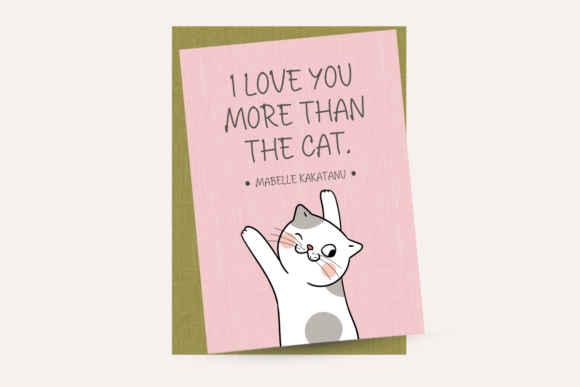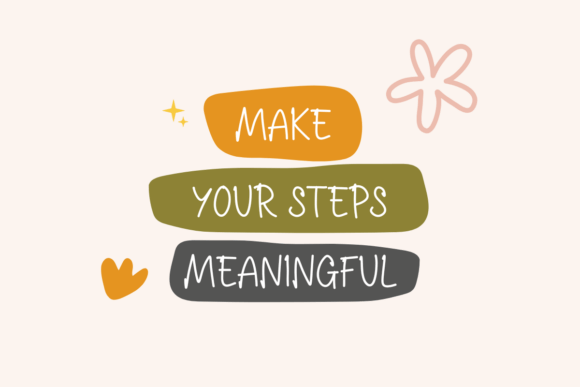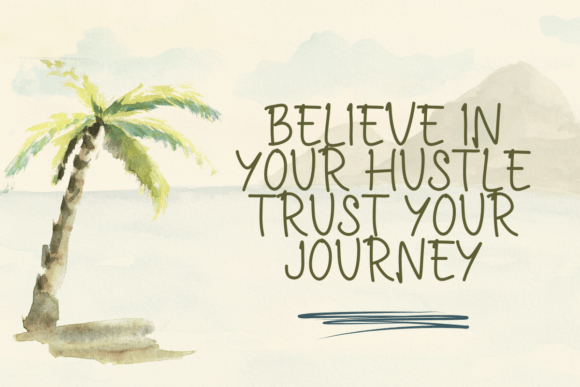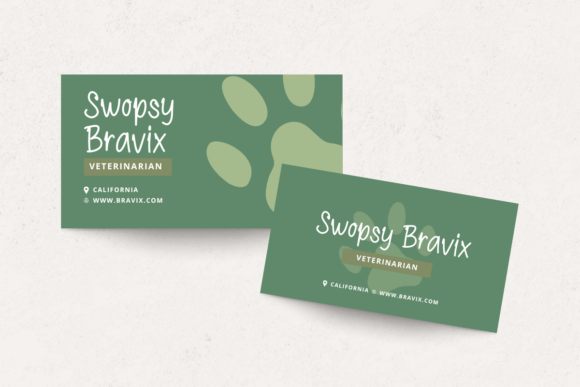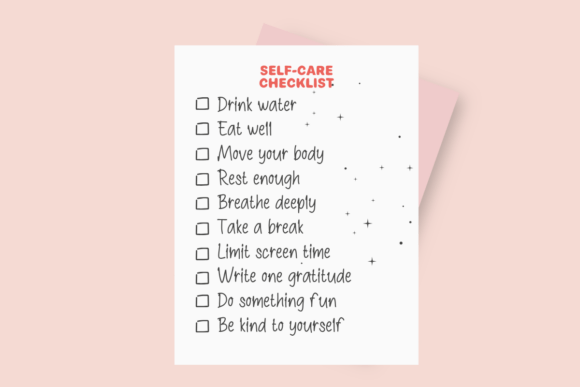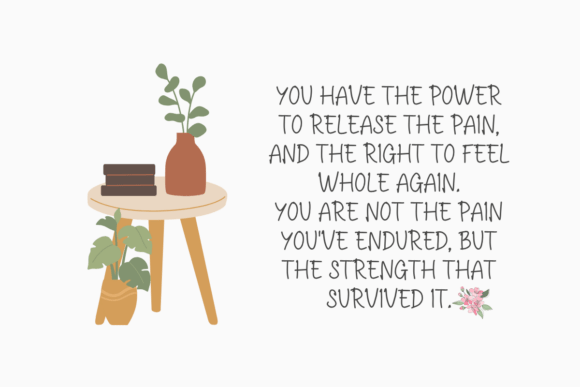
Introduction to Quipty Font
Have you ever stumbled upon the perfect font that captures the essence of your creative vision? For many designers, it’s that ‘aha’ moment that can make all the difference in bringing a project to life. For me, that moment came when I discovered the charming Quipty Font. Its playful, handwritten style instantly adds a touch of personality to any design.
As a valuable addition to any design resource, Quipty Font is perfect for designers looking to add a light-hearted tone to their creative projects. Its clean lines and gentle curves make it suitable for a wide range of applications, from social media graphics to product packaging, and even children’s books. With its smooth, handwritten style and natural rhythm, Quipty Font is a high-quality choice that will elevate your designs and leave a lasting impression.
Key Features of Quipty Font
- High-quality design resource with a unique and creative aesthetic, perfect for various projects.
- Perfect for creative projects, including logos, branding, and digital art.
Honest Review: Quipty Font
What works well: ✨ The Quipty Font has a unique and modern aesthetic that’s perfect for a wide range of creative projects. The font is available in various weights and styles, making it easy to find the perfect fit for your design. I also appreciated the transparent background option, which made it easy to customize and integrate into my design.
What could be improved: ⚠️ While the Quipty Font is a great resource, I did encounter some issues with font size and spacing. The font can be quite dense, which can make it difficult to read at smaller sizes. Additionally, the font doesn’t come with a comprehensive user manual, which can make it tricky to customize and troubleshoot.
Overall, I was impressed with the Quipty Font and would definitely recommend it for designers looking for a high-quality, free font. With a little tweaking, it can be a valuable addition to any creative project.
- Unique and modern aesthetic
- Available in various weights and styles
Tips for Getting the Most Out of Quipty Font
Quipty Font is a versatile font that can be used in a variety of creative projects. To get the most out of it, use it with a transparent background to create a modern and sleek design. You can also experiment with different font sizes and styles to create a unique look.
Quipty Font is commonly used in creative projects such as logos, business cards, and brochures. It is also a great choice for designing a website or creating a social media graphic with a high-quality font.